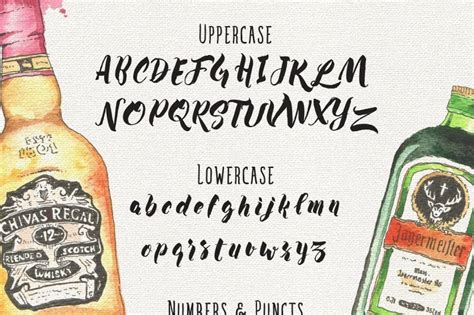
Otf 1.020;ps 001.003;core 1.31;makeotf.lib1.4.1585 postscript font name: 79,816 downloads (5,329 yesterday) free for personal use. The ashley brush script font is also handwritten with watercolors and calligraphy brushes. Brush fonts are made to look like they were created with a brush. An.otf font by printable wisdom. To use this font on your website, use the following css glyph support & stylistic filters. Its imperfect lines and rough edges add to its trendy and unique look. Rough edges and imperfect lines give this brush lettered font a unique and.
This heavy, informal script looks as though it was written with a brush because its lowercase letters join together.
Ashley script is a brush script and is based on havinden's own handwriting. The best selection of brush fonts for windows and macintosh. Download 10,000 fonts with one click for $19.95. This heavy, informal script looks as though it was written with a brush because its lowercase letters join together. Rough edges and imperfect lines give this brush lettered font a unique and. Free fonts for commercial use · new & fresh fonts · most popular fonts · alphabetic fonts · largest font families · trending fonts. Ashley brush script font 2.83/5. Previous articlearnetalia font free download. An.otf font by printable wisdom. Its imperfect lines and rough edges add to its trendy and unique look. Brush script std medium version: Archive of freely downloadable fonts. No alternates or foreign alphabets supported at.
Youtube sans font free download. Brush fonts are made to look like they were created with a brush. Otf 1.020;ps 001.003;core 1.31;makeotf.lib1.4.1585 postscript font name: Brush script std medium version: An.otf font by printable wisdom. The ashley brush script font is also handwritten with watercolors and calligraphy brushes. Information about the font ashley brush script and where to buy it. Ashley script is a brush script and is based on havinden's own handwriting.
This heavy, informal script looks as though it was written with a brush because its lowercase letters join together.
Дизайнер free for personal use. Ashley script is a typeface developed by the british designer ashley havinden in 1955 for monotype corporation. Its imperfect lines and rough edges add to its trendy and unique look. Ashley script is available as a desktop font and a web font. Bristle brush script black demo download. Rough edges and imperfect lines give this brush i especially love the look of this font with watercolor textures added! Licensed for personal and commercial use. Brush script font is always a recommended font weight for designers. Next articleclarkson script free download. Rough edges and imperfect lines give this bromello free font is a modern script typeface with hand made style. Download 10,000 fonts with one click for $19.95. Free fonts for commercial use · new & fresh fonts · most popular fonts · alphabetic fonts · largest font families · trending fonts. No alternates or foreign alphabets supported at.